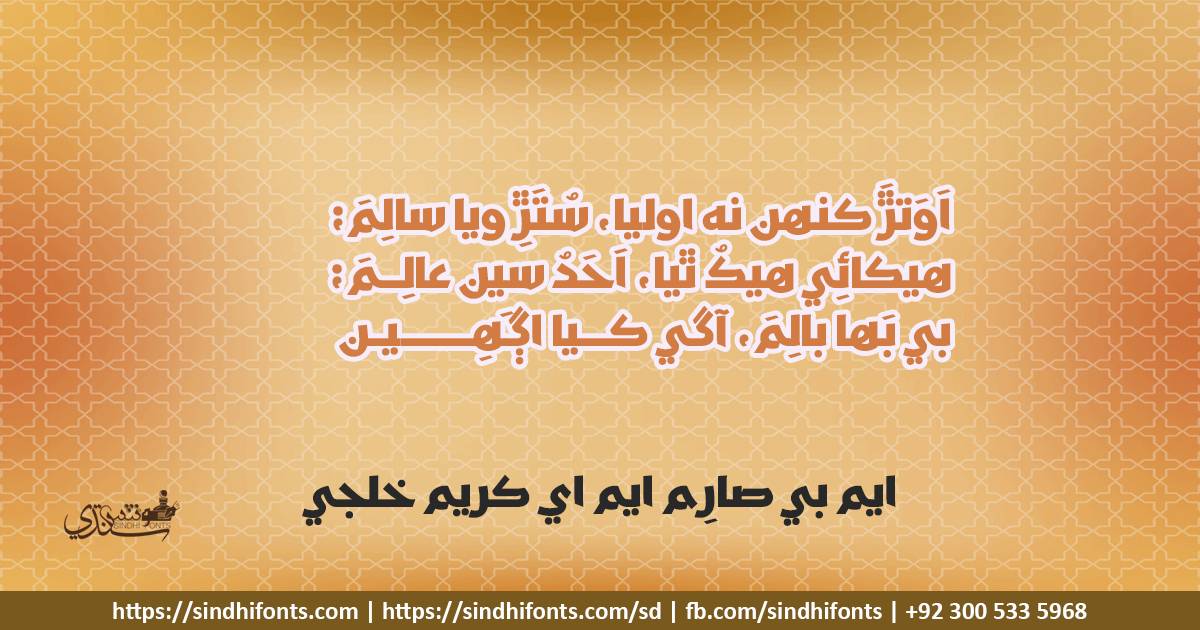
MB Sarem MA Kareem Khilji
MB Sarem MA Kareem Khilji is a Sindhi Font for your designs particularly for the headings. This font pack contains 2 fonts Regular and Bold. It confirms the latest Unicode standards also. MB Sarem MA Kareem Khilji is free of charge to download and install on your computer.